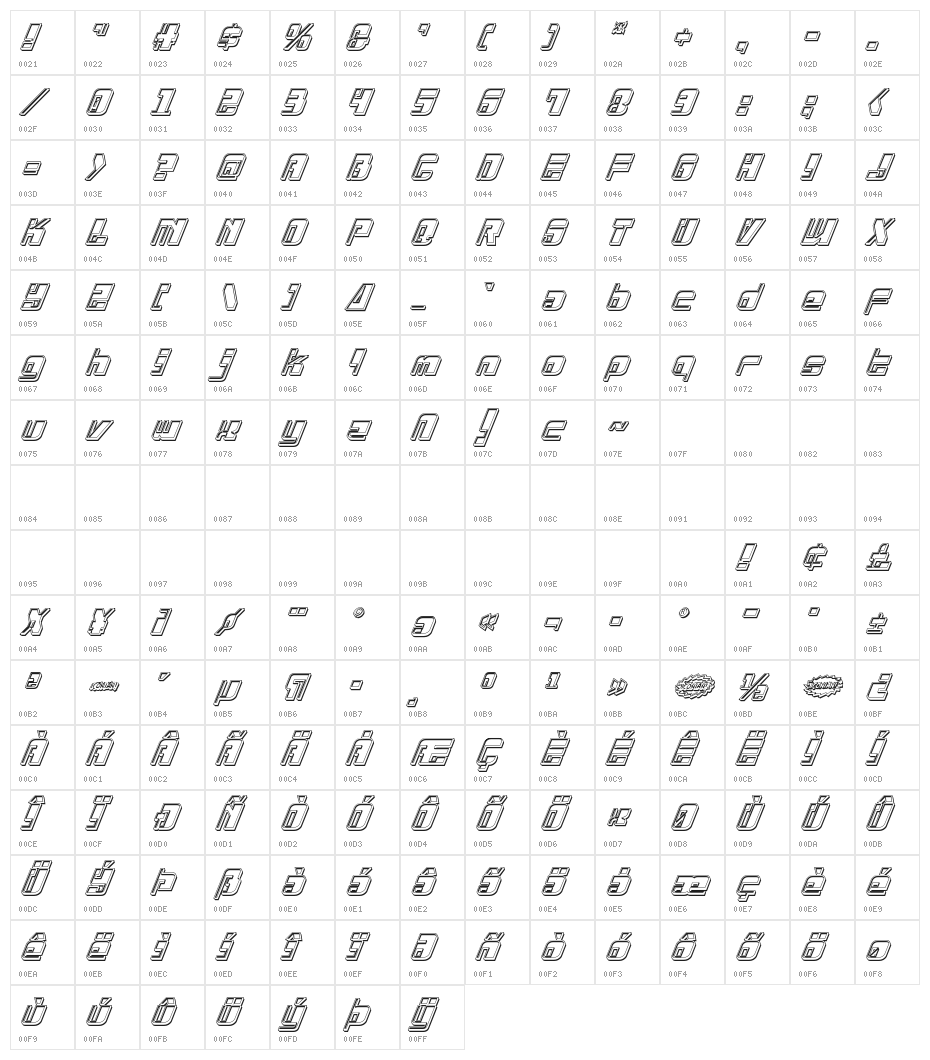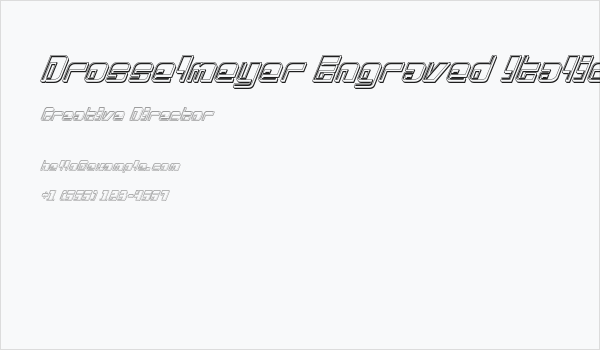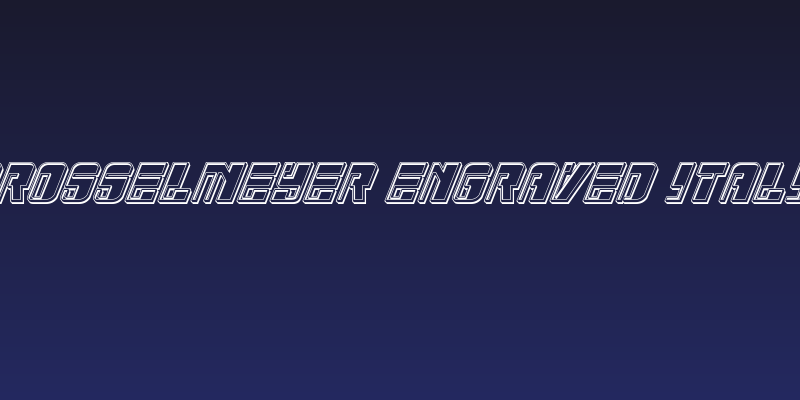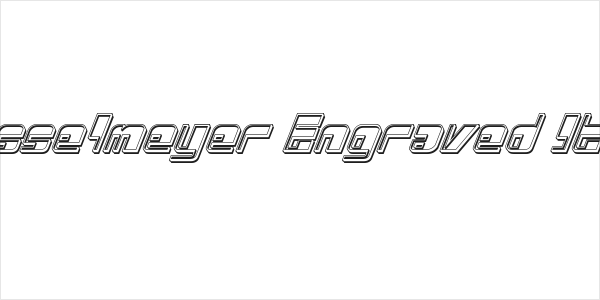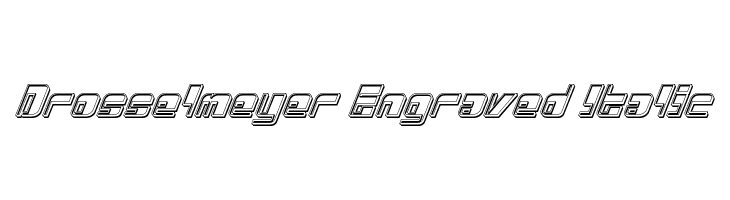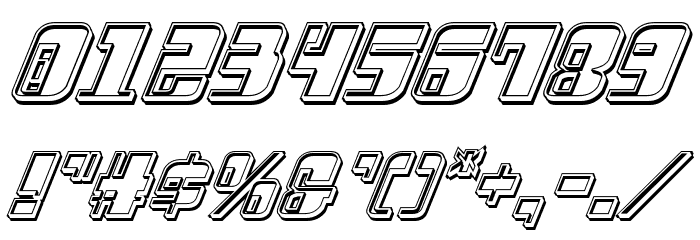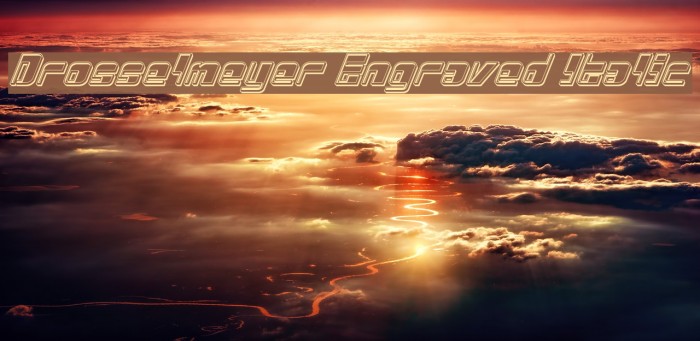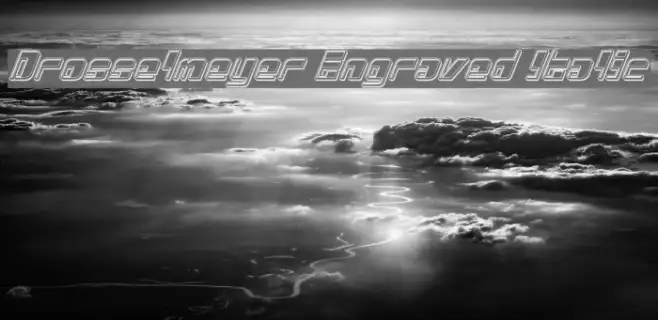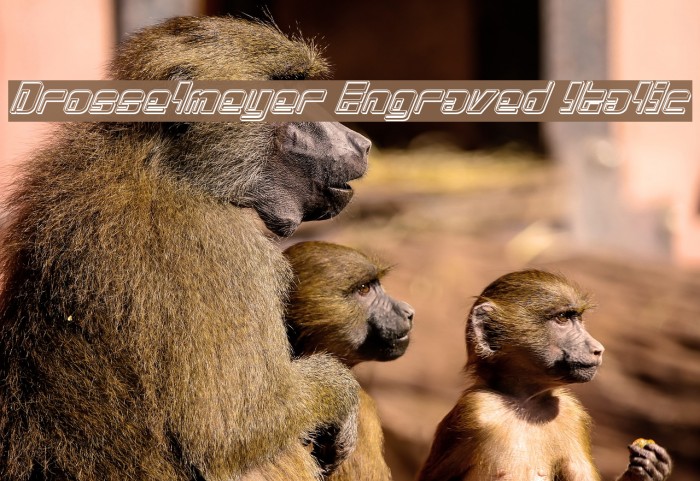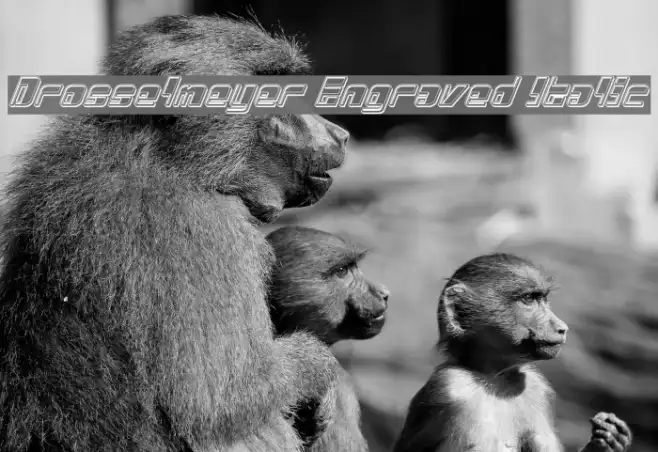
Drosselmeyer Engraved Italic Font
Drosselmeyer Engraved Italic Description
This font features a bold, engraved style with a distinct italic slant, giving it a dynamic and modern appearance. The characters are outlined with a double line effect, creating a sense of depth and dimension. The uppercase and lowercase letters maintain a consistent geometric structure, while the numerals and special characters follow the same engraved aesthetic. The overall design is clean and futuristic, making it suitable for projects that require a standout, decorative typeface.
| Proposed Projects | Ideal for use in branding, posters, video game graphics, and any project that requires a futuristic or decorative touch. |